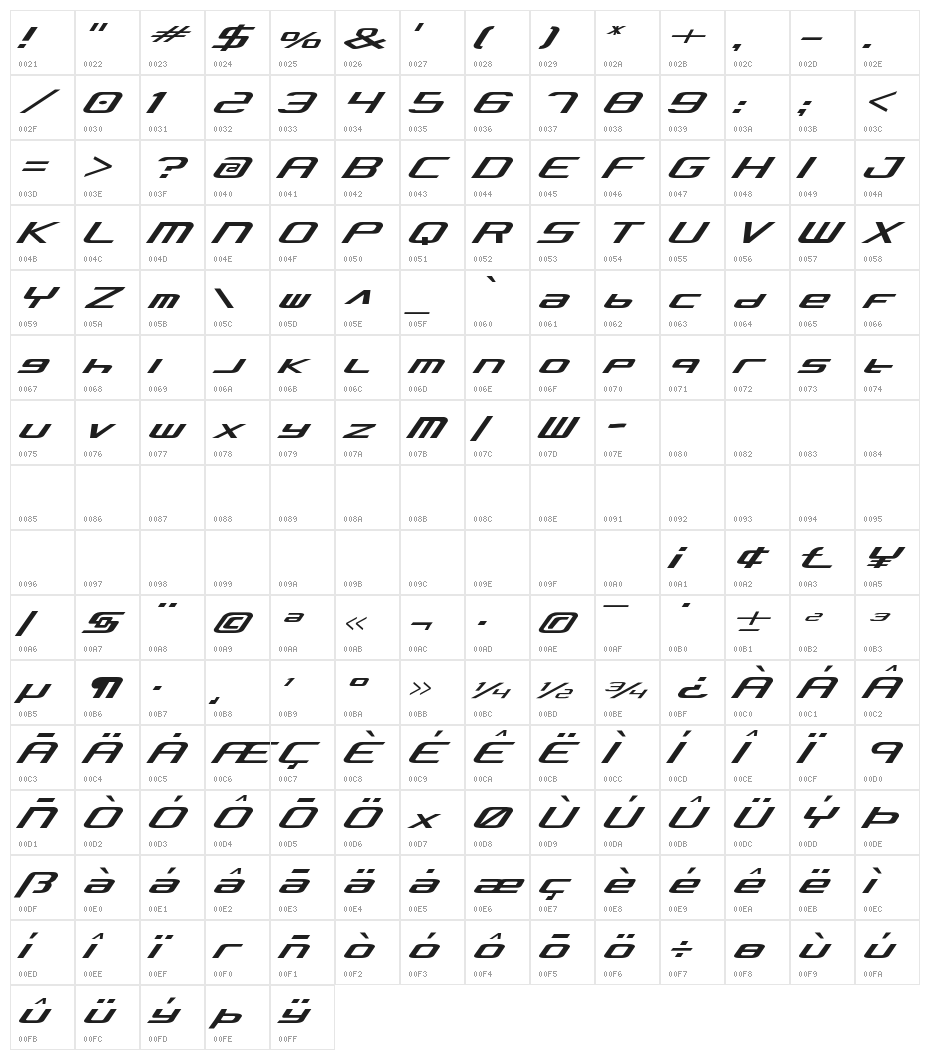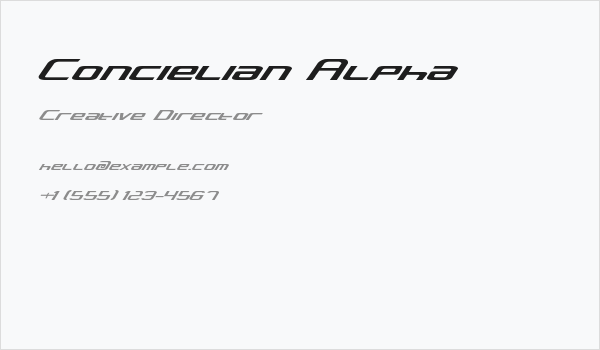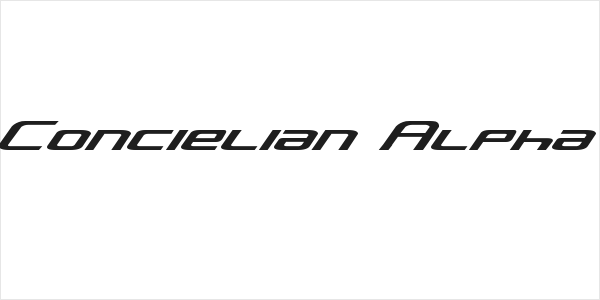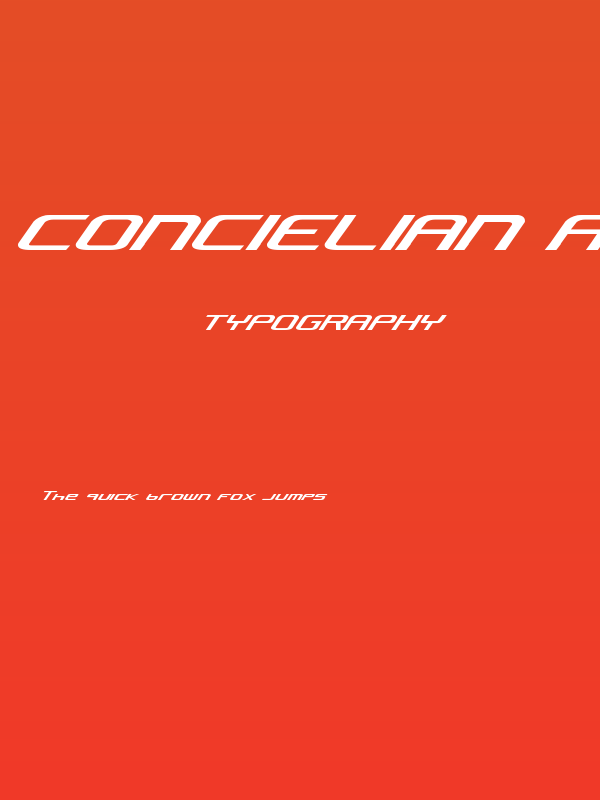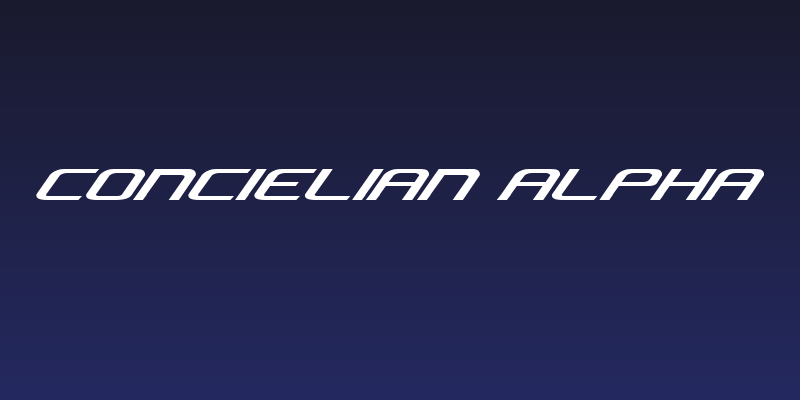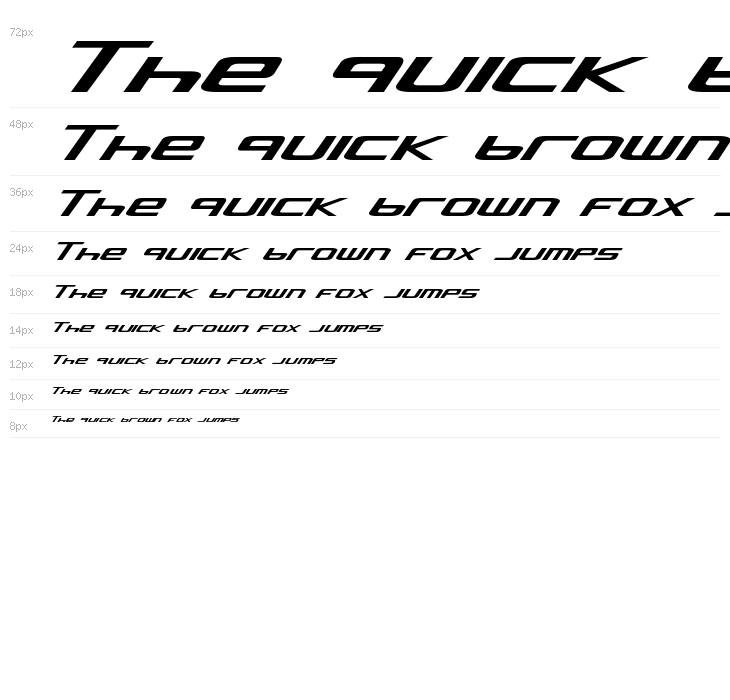
Concielian Alpha Font
Concielian Alpha Description
This font features a sleek, futuristic design with a distinct slant, giving it a sense of motion and speed. The characters are angular with sharp edges, creating a modern and dynamic appearance. The uppercase and lowercase letters maintain a consistent style, with the lowercase letters slightly more compact. Numbers and special characters are designed to match the overall aesthetic, ensuring uniformity across all glyphs. The font's unique style makes it suitable for projects that require a contemporary and energetic look.
| Proposed Projects | Ideal for technology branding, sci-fi themed designs, video game titles, and modern advertising. |